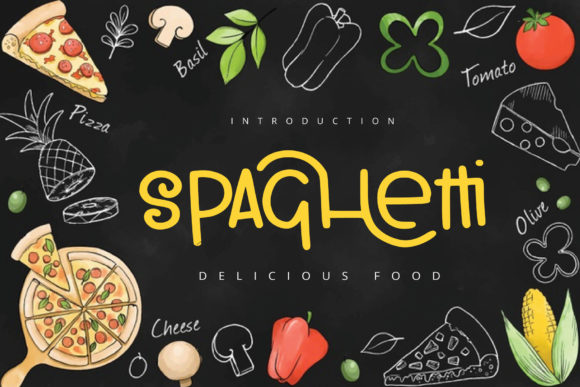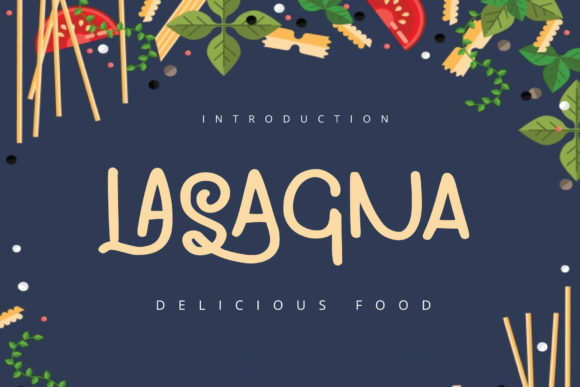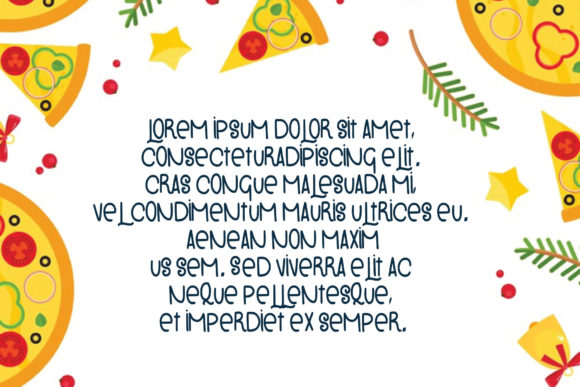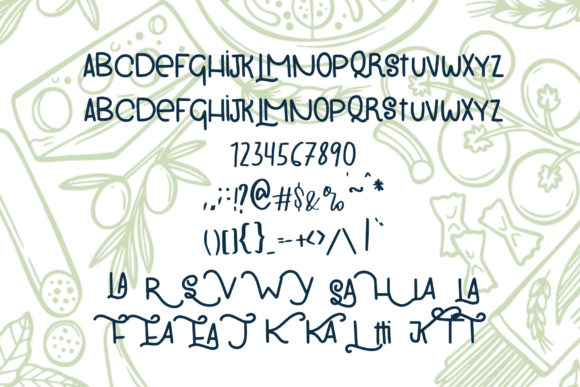
Spaghetti Font
About Spaghetti Font
Spaghetti script font has such a simplistic beauty and creates an especially wonderful flow when combined with the special characters. This font is PUA encoded which means you can access all of the glyphs and swashes with ease!